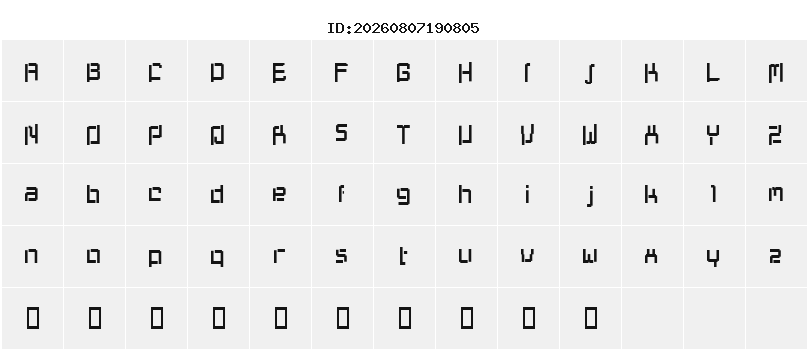
• Font Name: progenisis
• Font ID: DustinNorlander: progenisis: 2001
• Full Font Name: progenisis
• Version: Version 1.0; 2001; initial release
• PostScript Name: progenisis
• Character Count: 65
• Designer: Dustin Norlander
About progenisis.ttf
progenisis.ttf is a modern, elegant sans-serif font designed for ultimate readability and visual harmony. Perfect for branding, headlines, web design, and print materials.